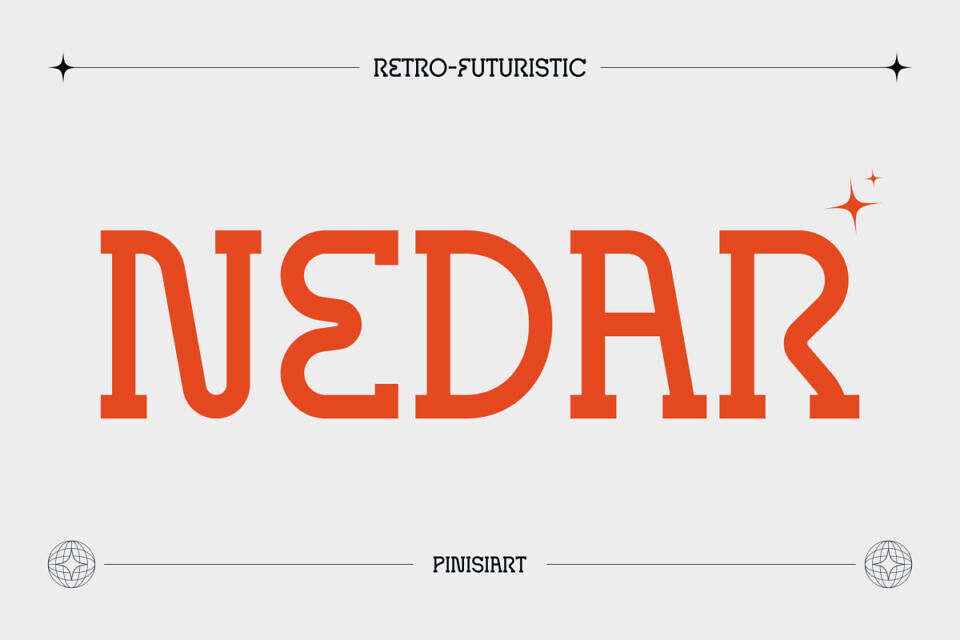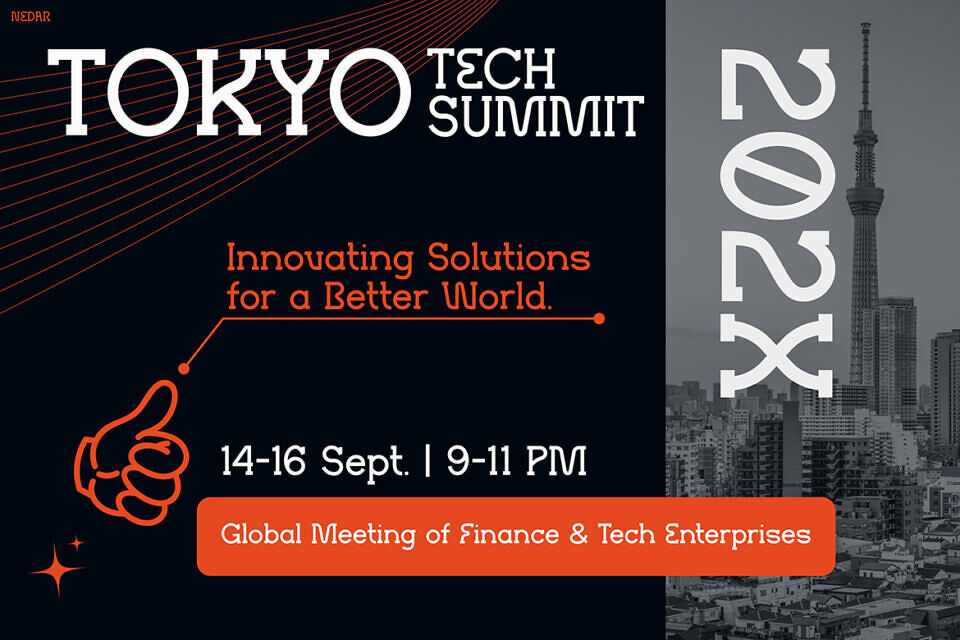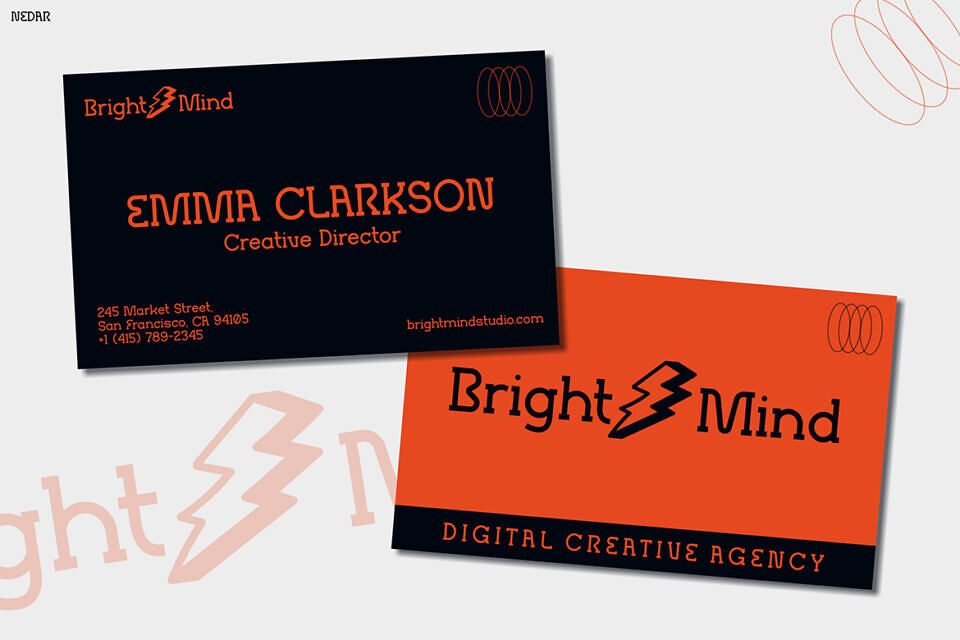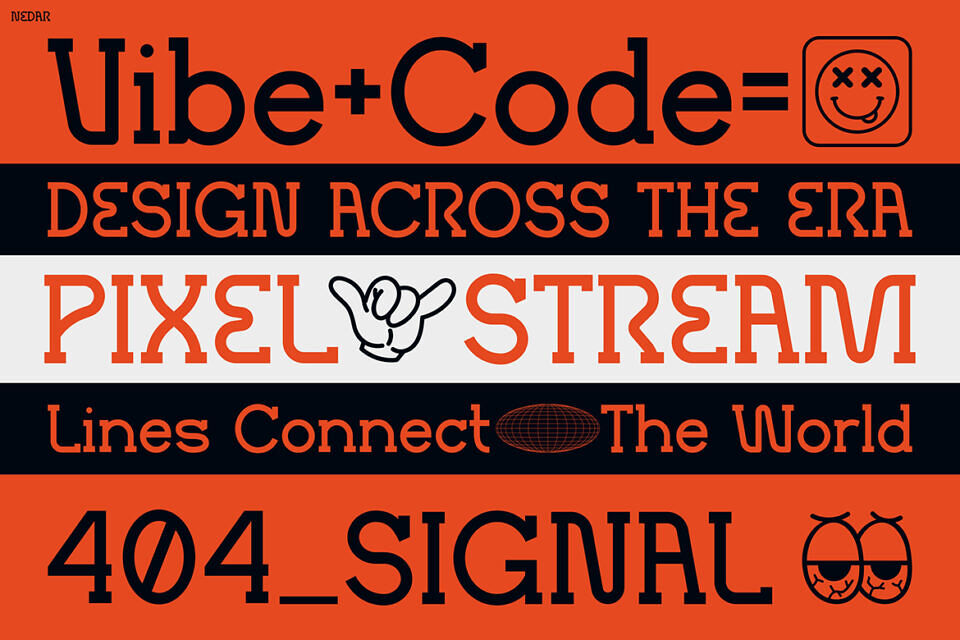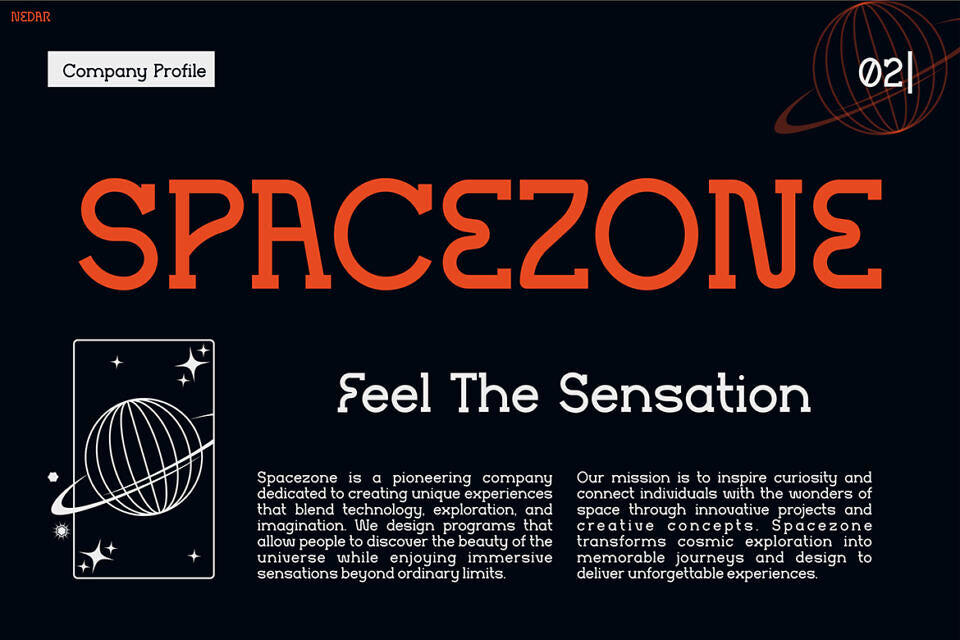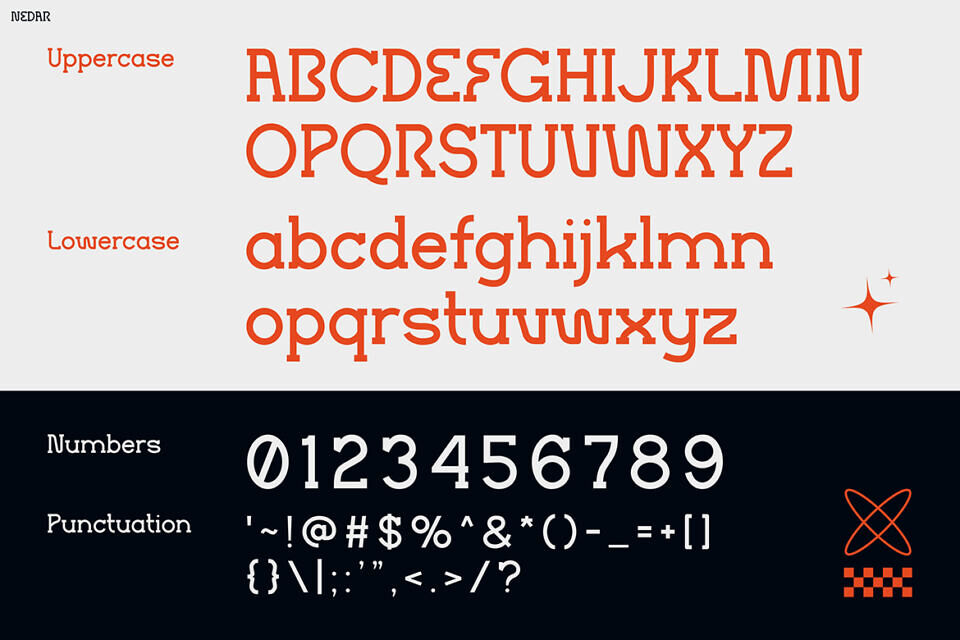
NEDAR Font blends retro charm with futuristic precision, offering bold, balanced strokes and unique letterforms. Its versatility shines across logos, posters, packaging, and social media, boosting engagement and memorability.